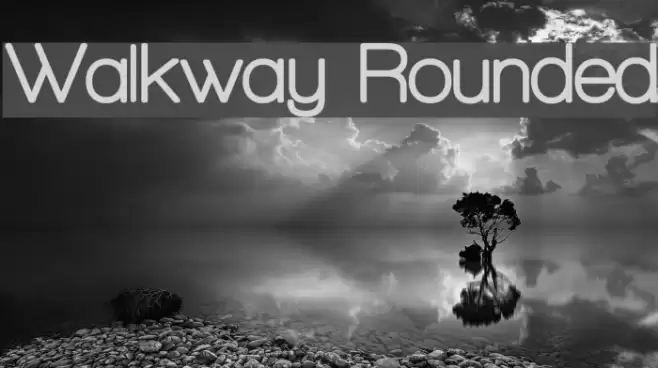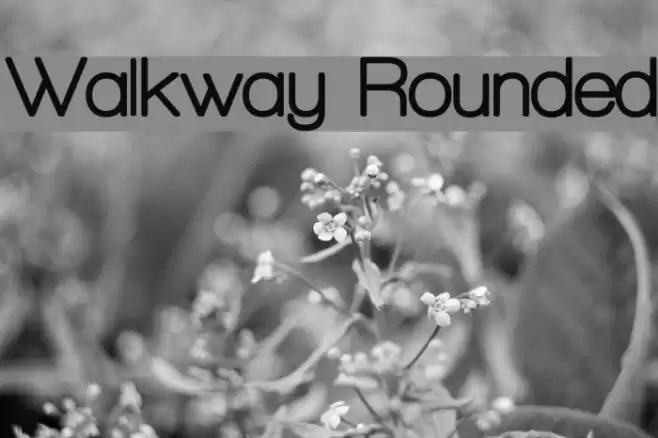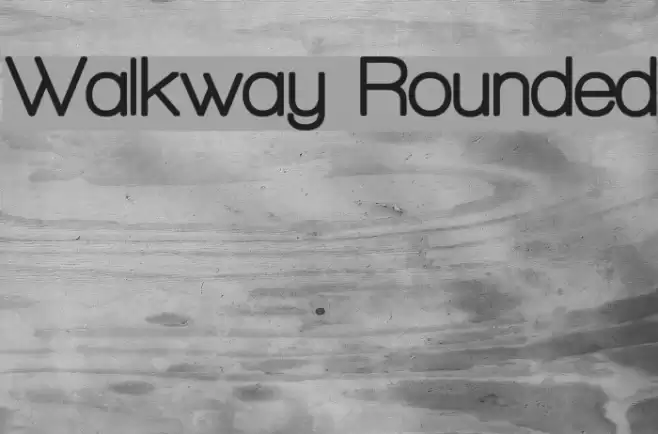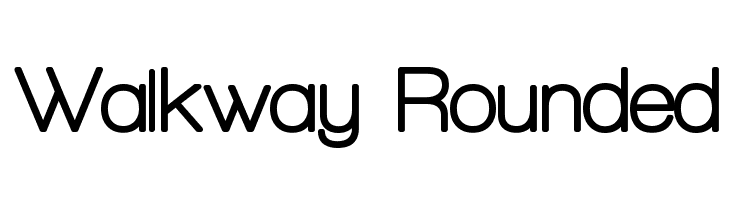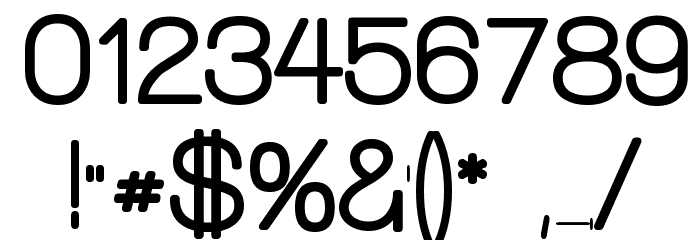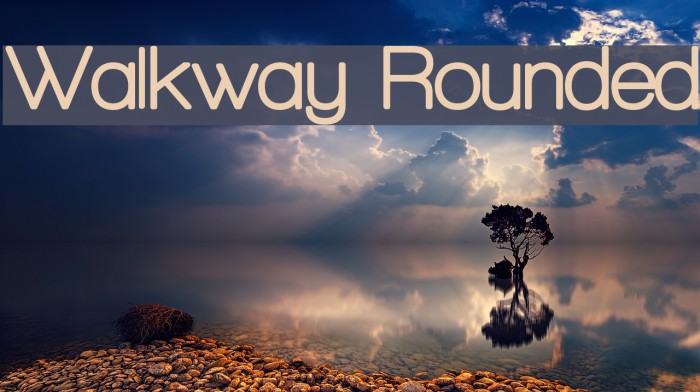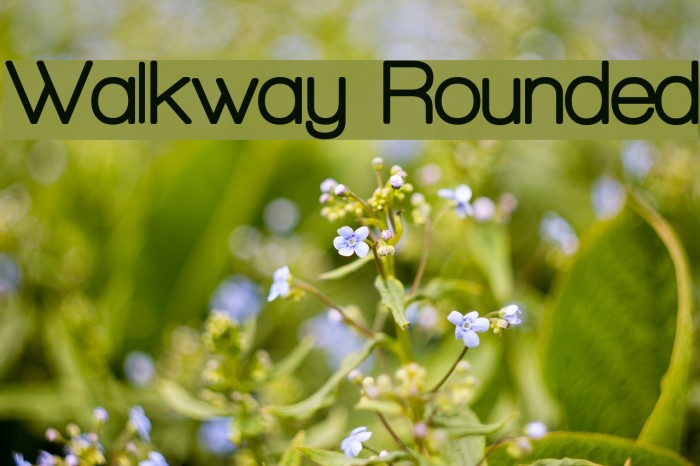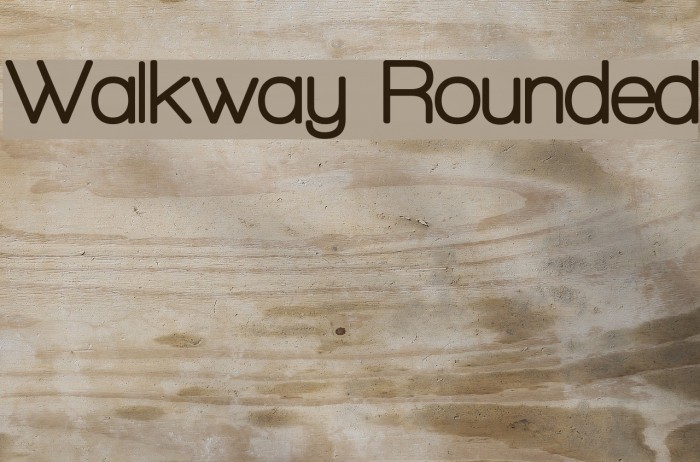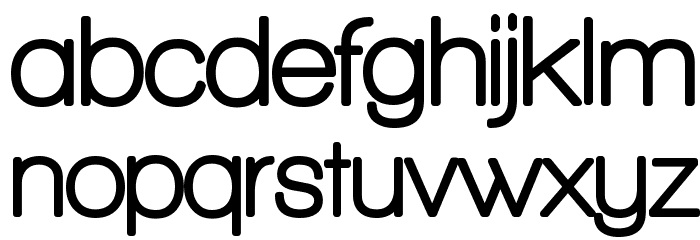
Walkway Rounded Font
Walkway Rounded Description
This font features a clean, rounded sans-serif style that exudes a modern and approachable aesthetic. The characters are evenly spaced with a consistent stroke width, providing a harmonious and balanced appearance. The rounded edges soften the overall look, making it suitable for a wide range of applications. Its simplicity and clarity ensure excellent readability, even at smaller sizes. The numerals and special characters maintain the same rounded and open design, ensuring consistency throughout the font set.
A modern, rounded sans-serif font with a clean and approachable style from Formal fonts.
- Proposed Projects: Ideal for branding, signage, digital interfaces, and print materials where a friendly and modern look is desired.